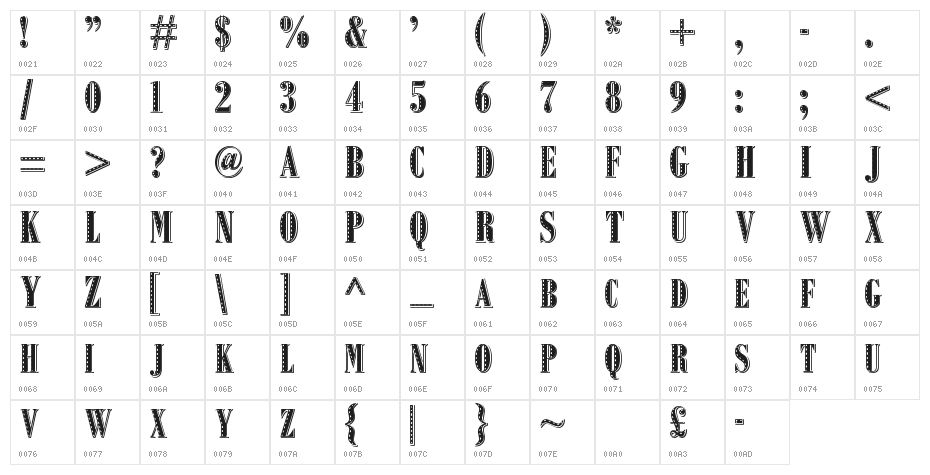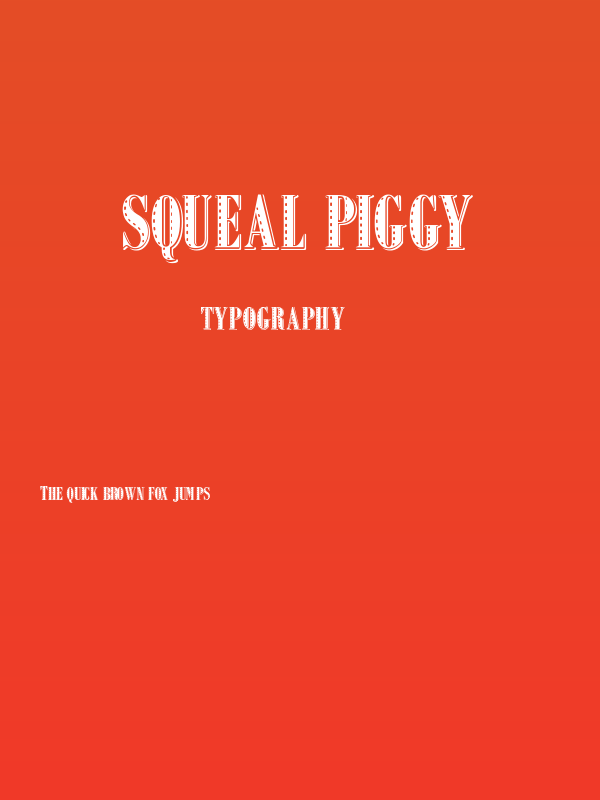
Squeal Piggy Font
Squeal Piggy Description
This font features a bold and decorative style with a distinct vintage flair. Each character is outlined with a series of dots, creating a marquee or carnival-like appearance. The letters are tall and narrow, with sharp serifs that add to their striking presence. The numbers and special characters follow the same design, ensuring consistency across the font. This typeface is eye-catching and ideal for designs that require a touch of nostalgia or a bold statement.
| Proposed Projects | Ideal for vintage-themed posters, event invitations, signage, and branding that requires a bold, eye-catching typeface. |